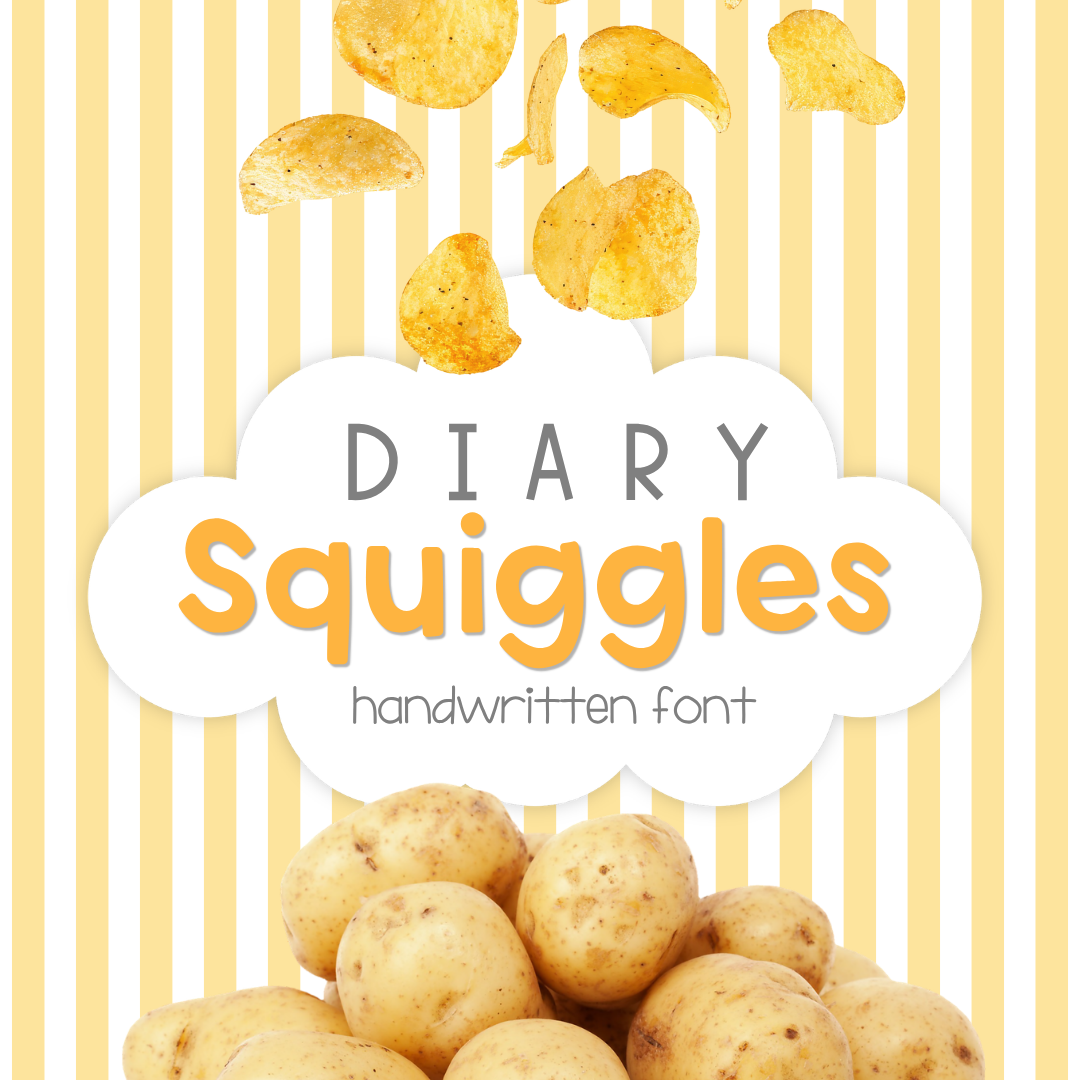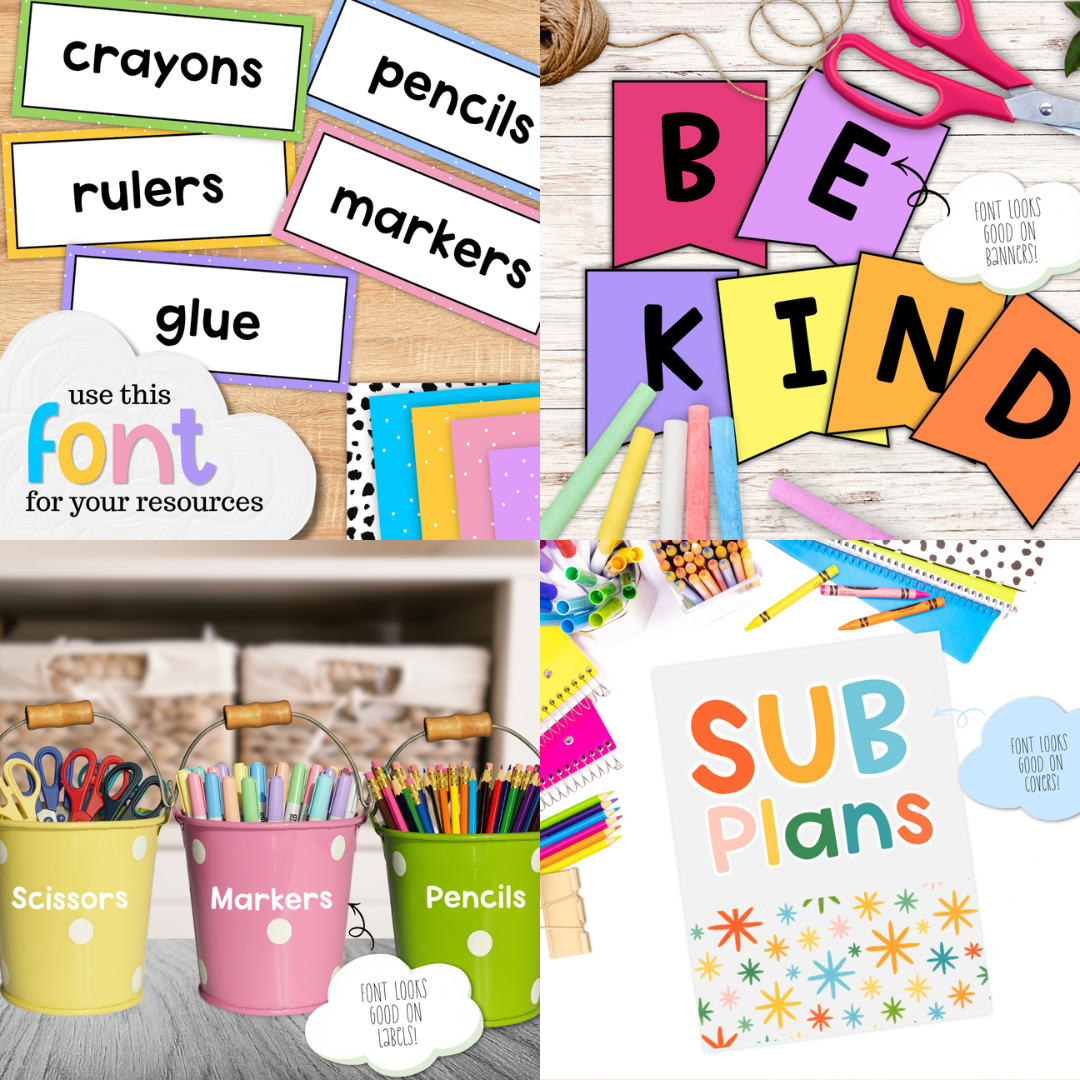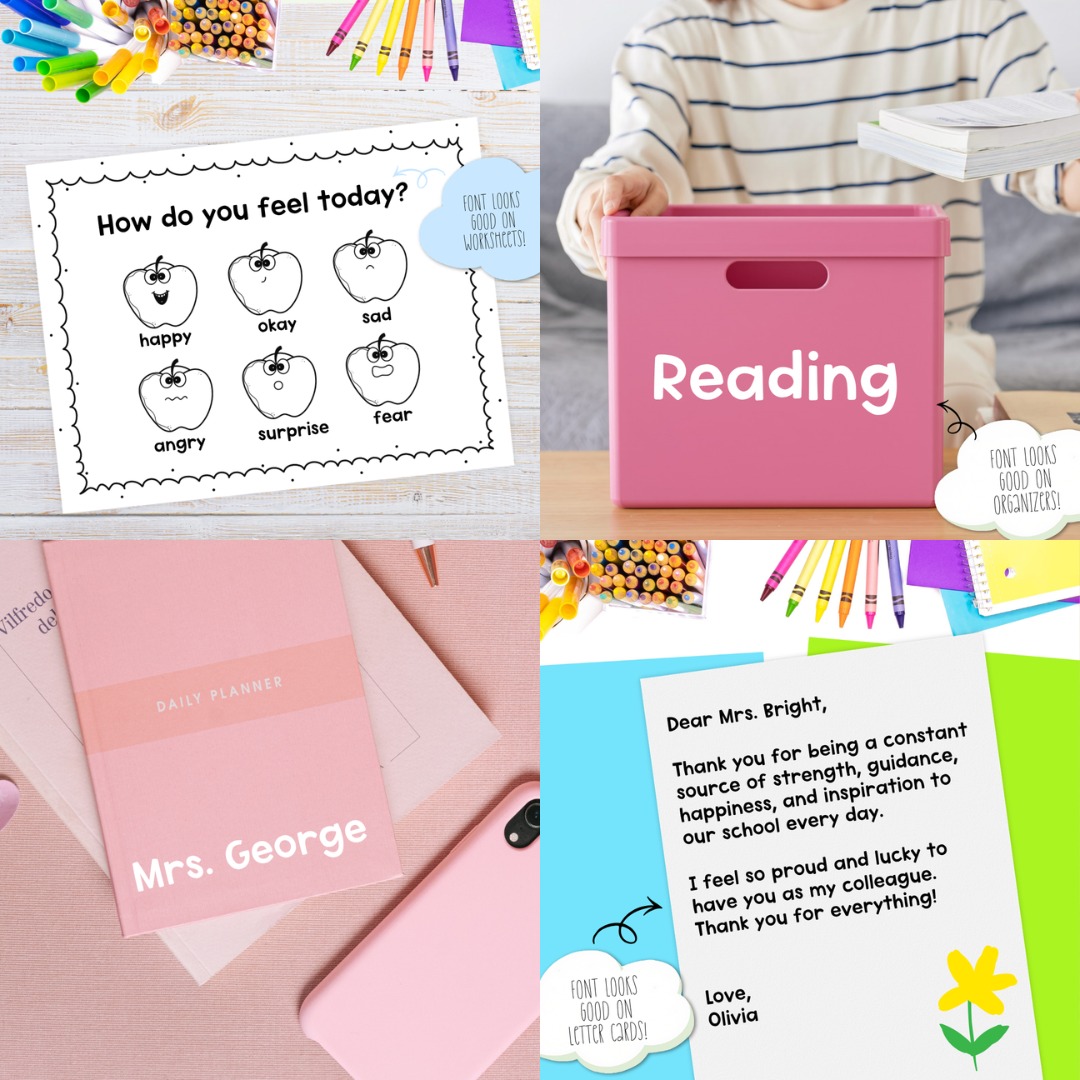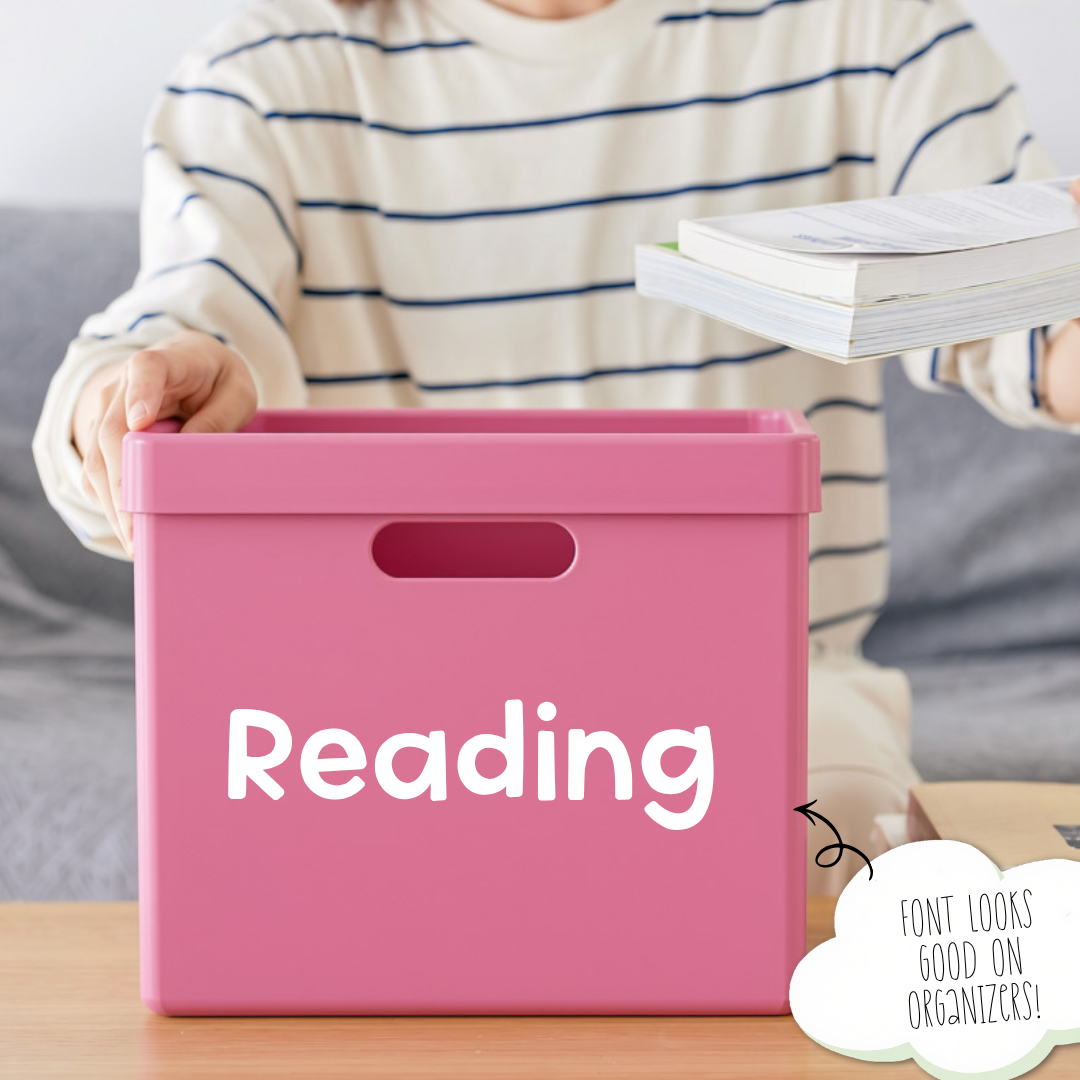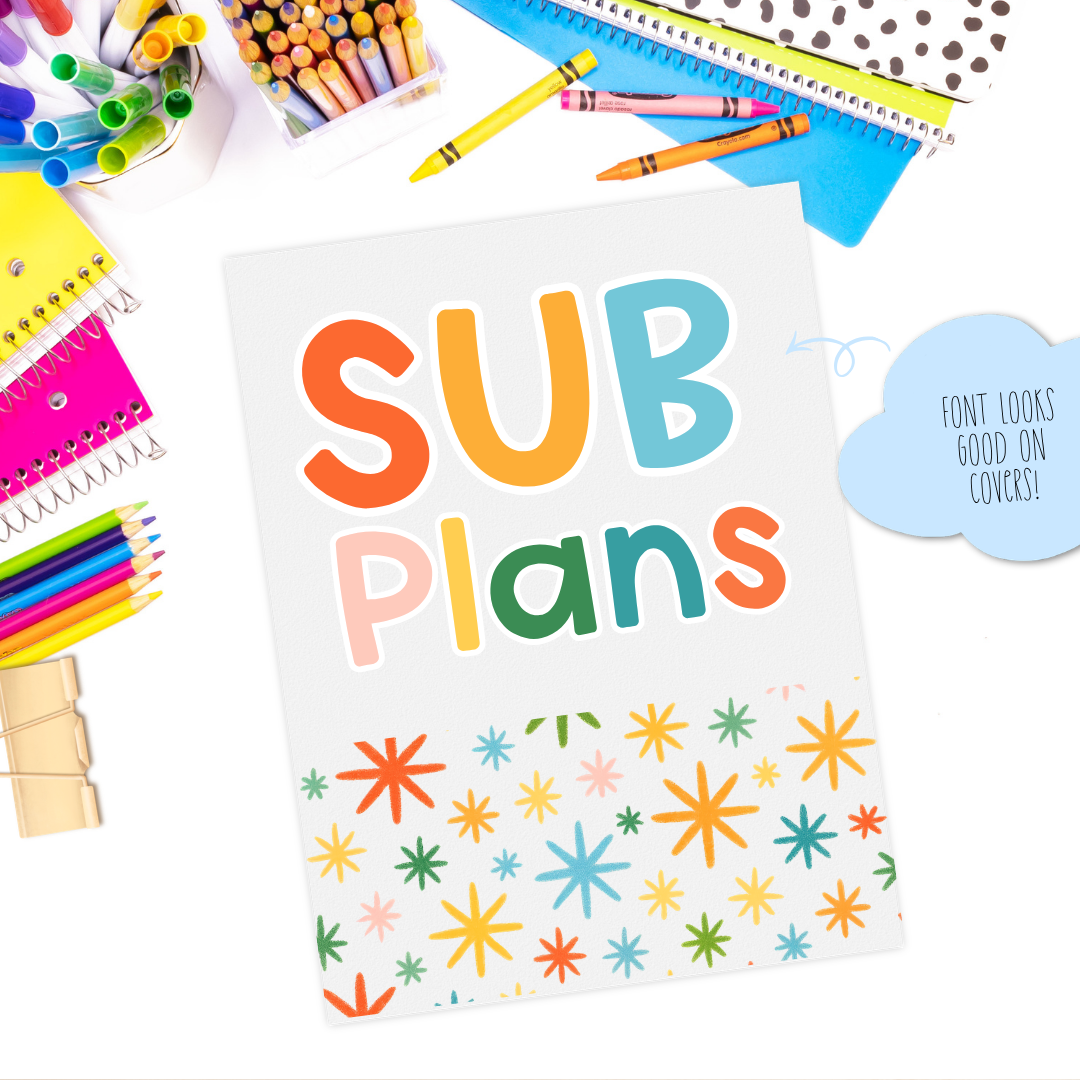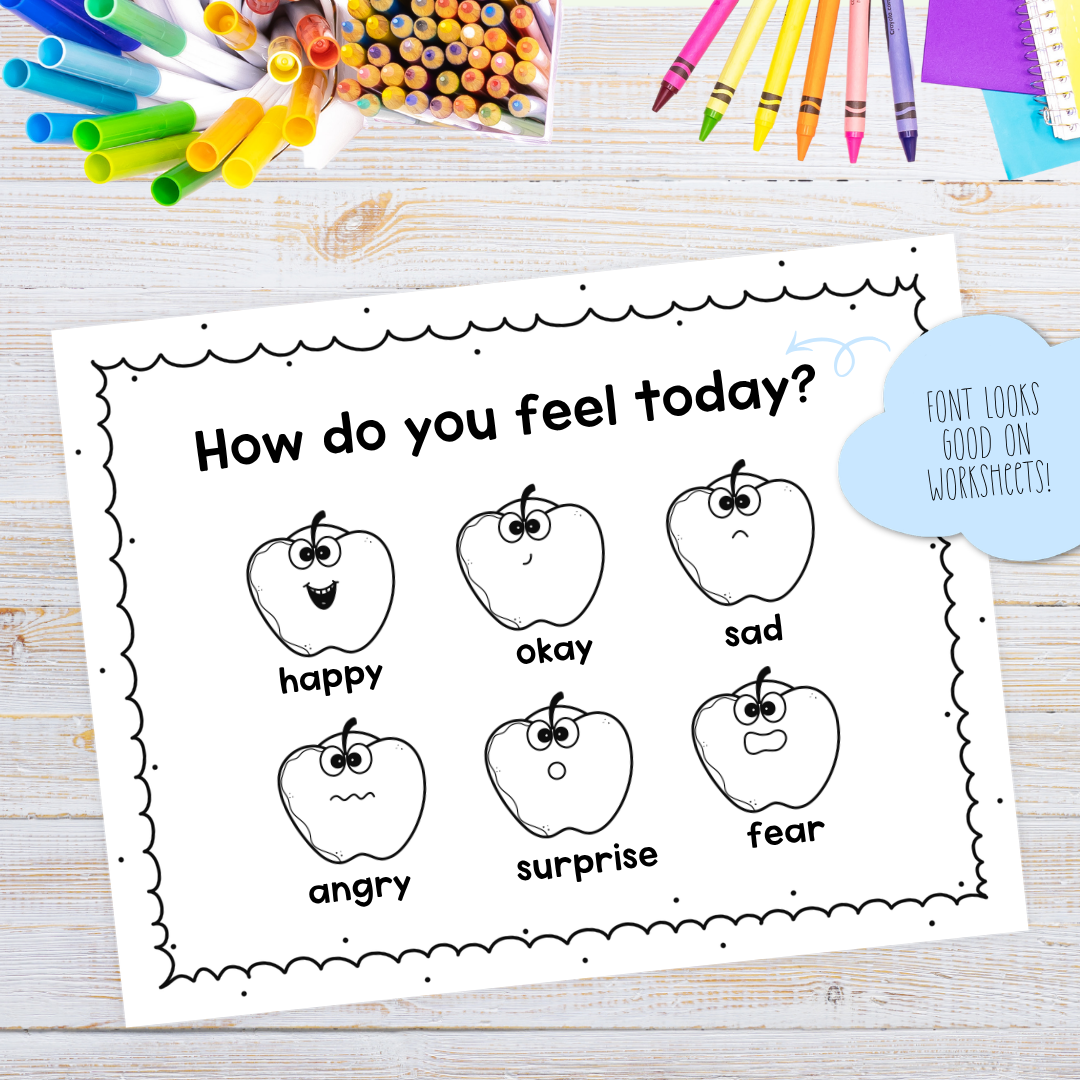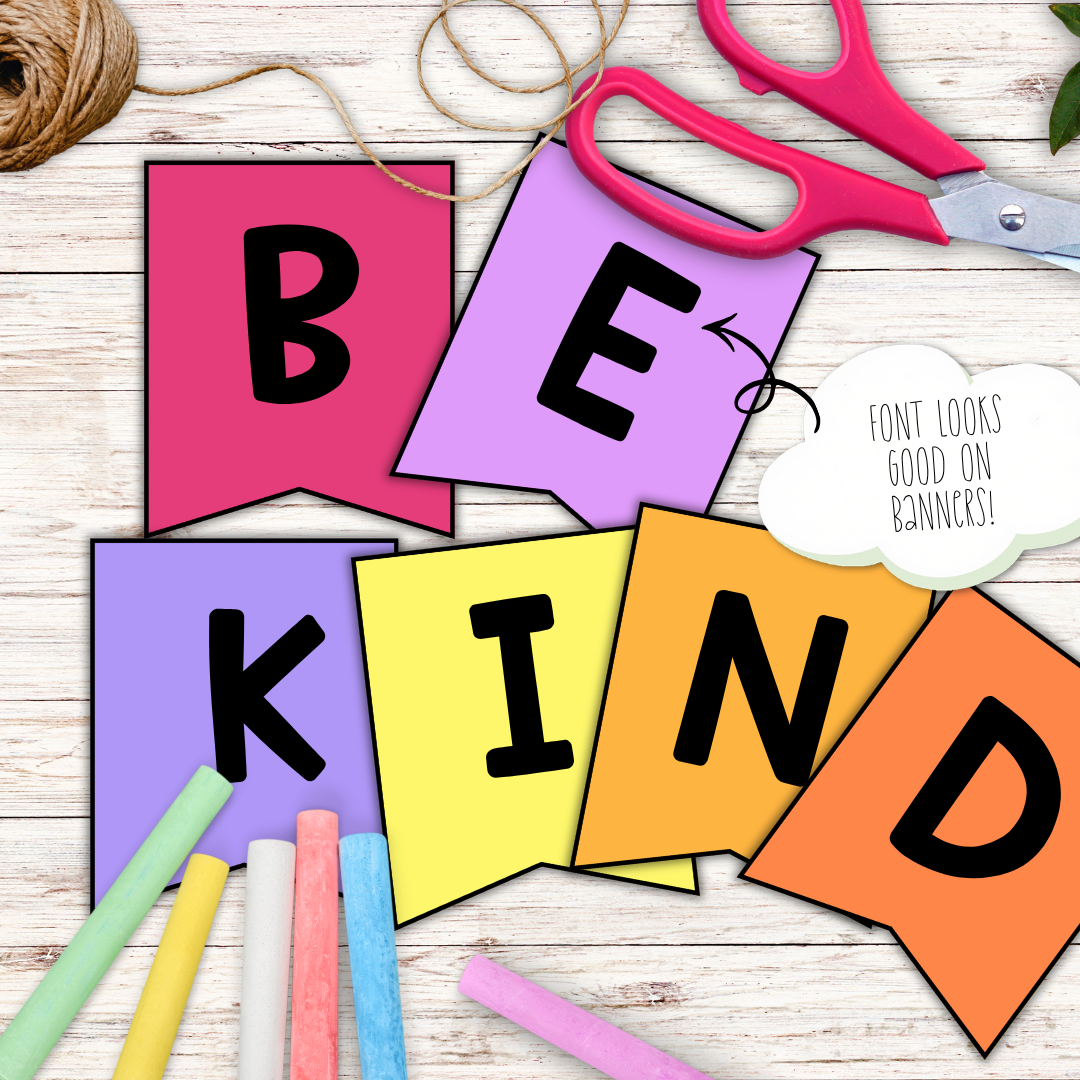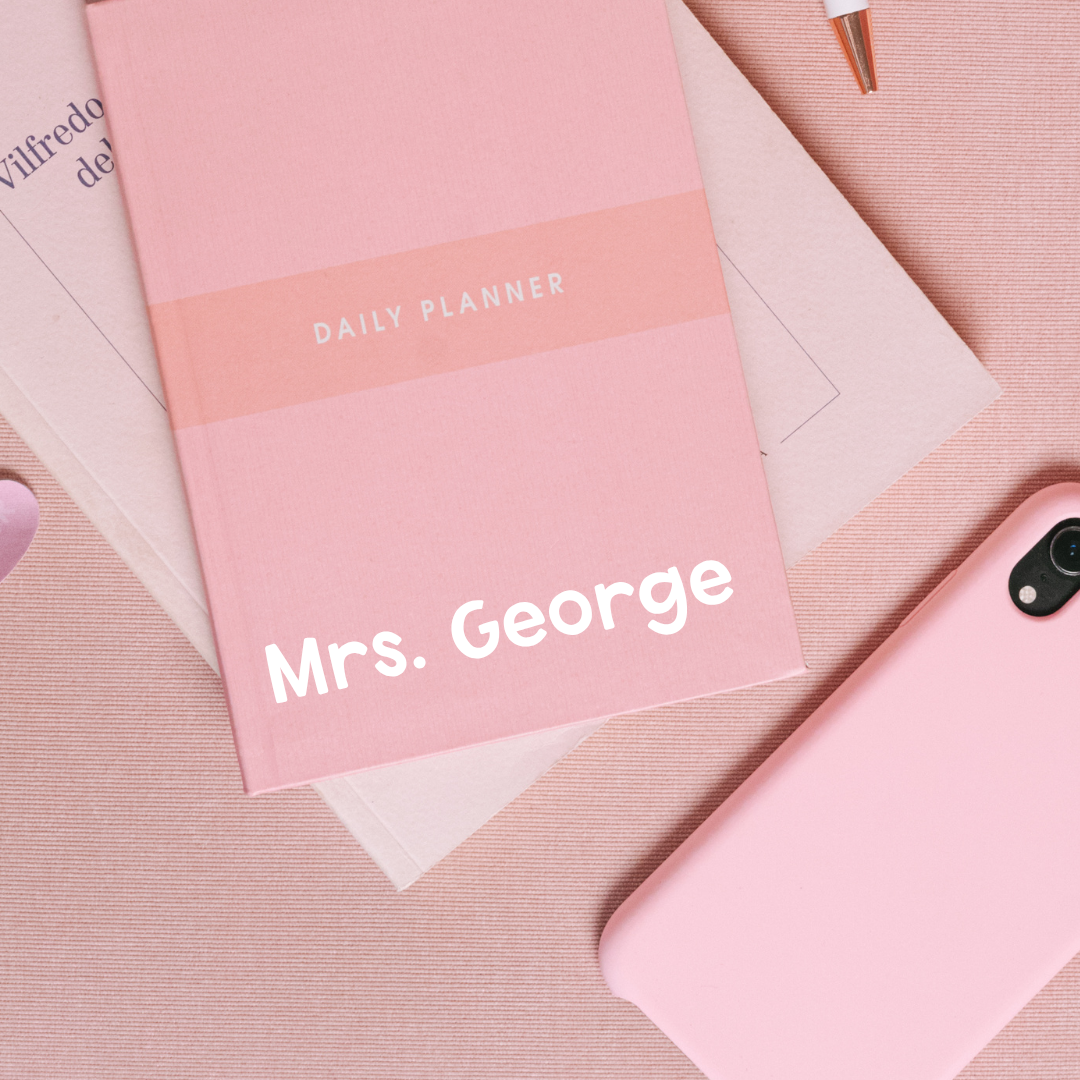
Diary Squiggles – Bold Handwritten Font
If you need a bold, reliable print font that combines playful handwriting charm with exceptional legibility, Diary Squiggles is a perfect choice for your resource toolkit. Featuring thick, solid strokes and clean, rounded letterforms, this typeface offers just the right amount of hand-drawn personality while staying completely structured.
This font is easy for young learners and early readers to track text across the room. Use it to type up primary reading passages, vocabulary flashcards, classroom supply bucket labels, bulletin board banners, decors, daily schedule headers, and other classroom resources.